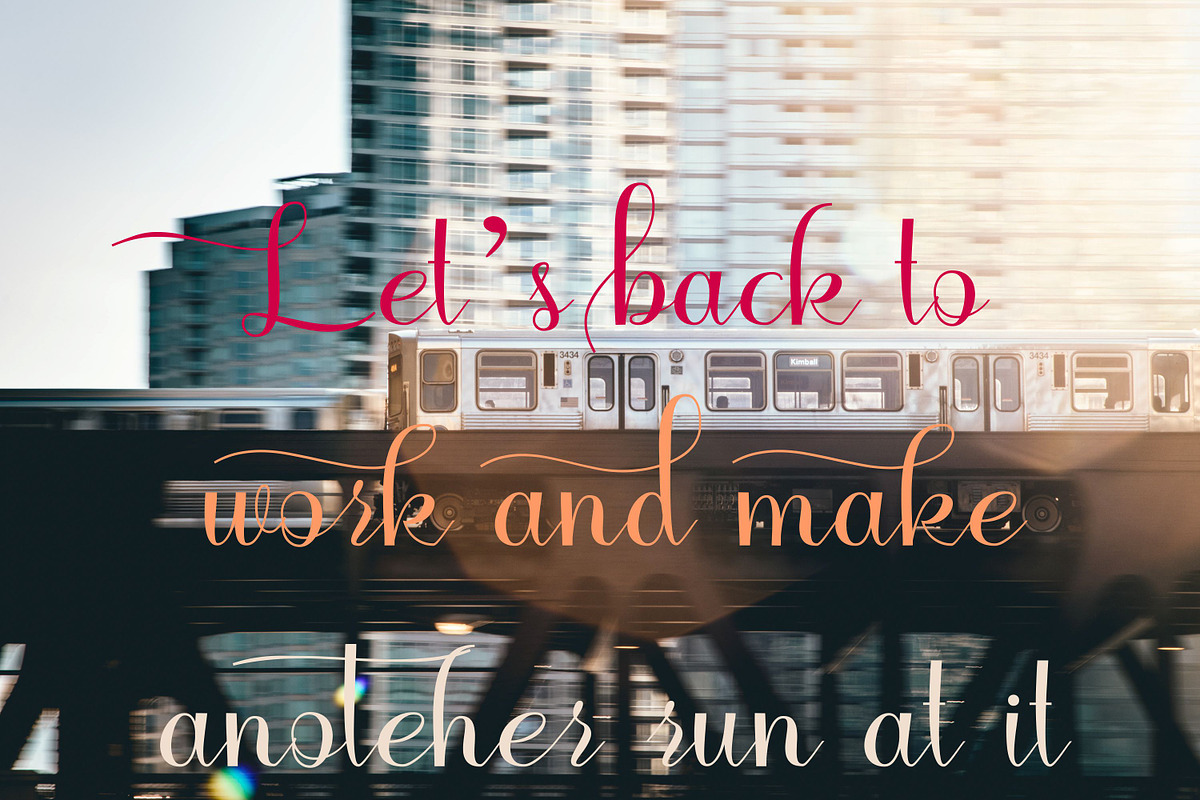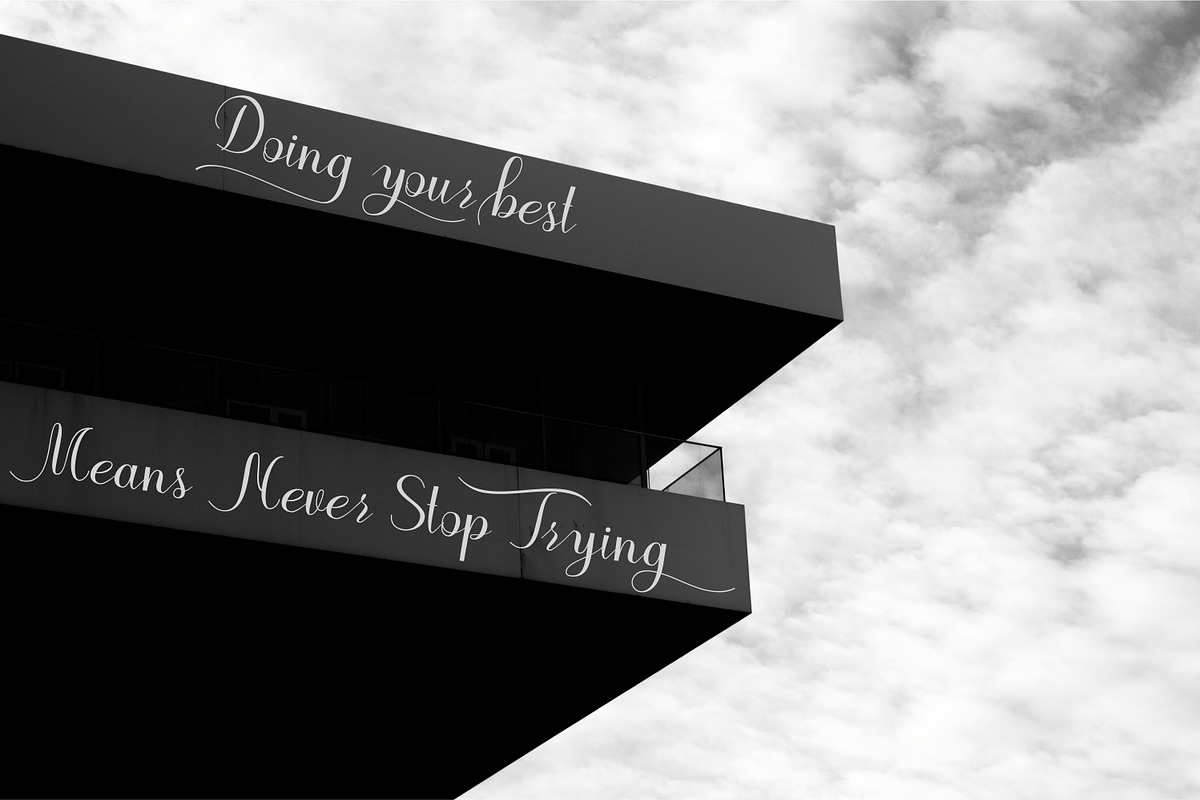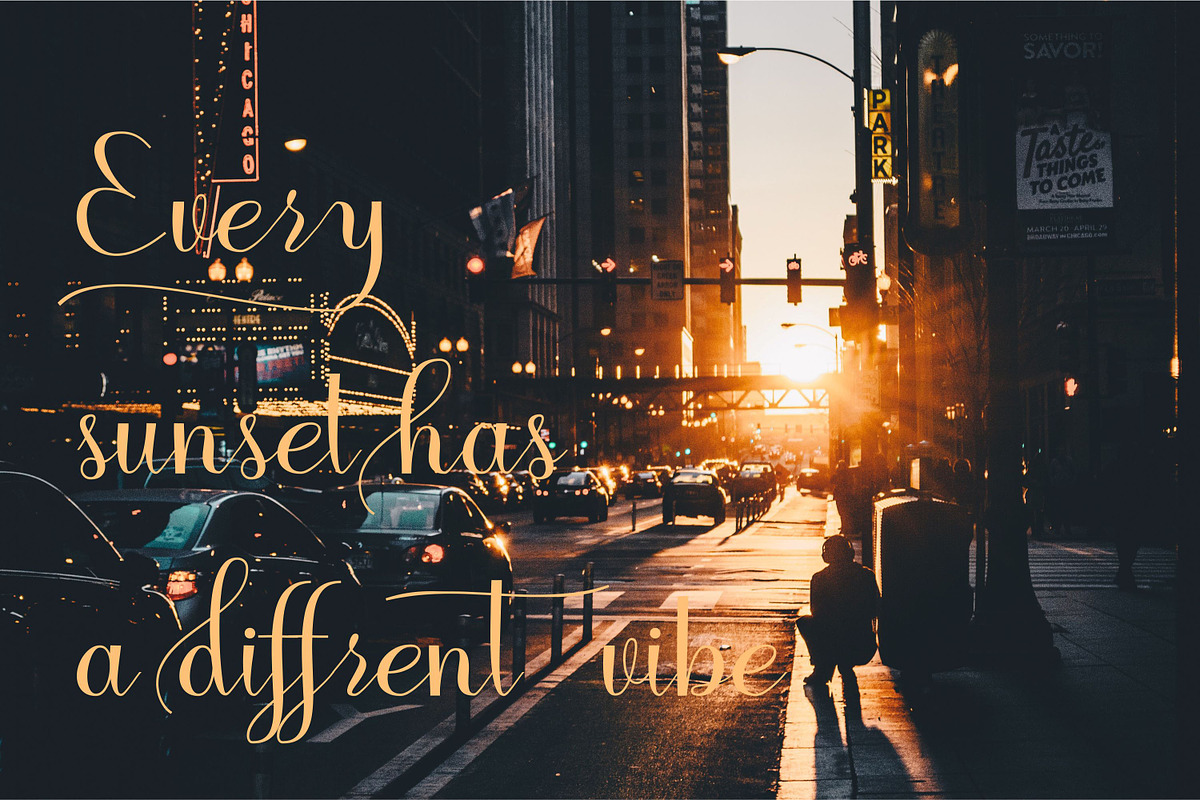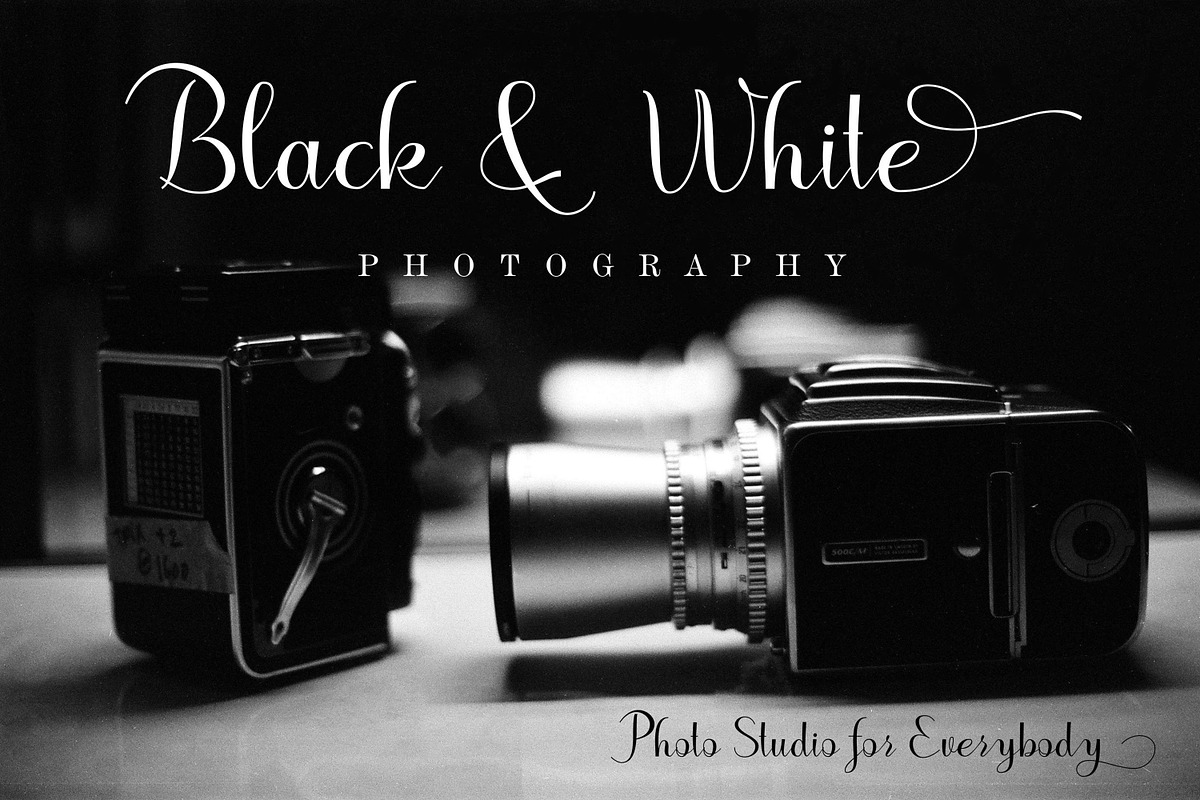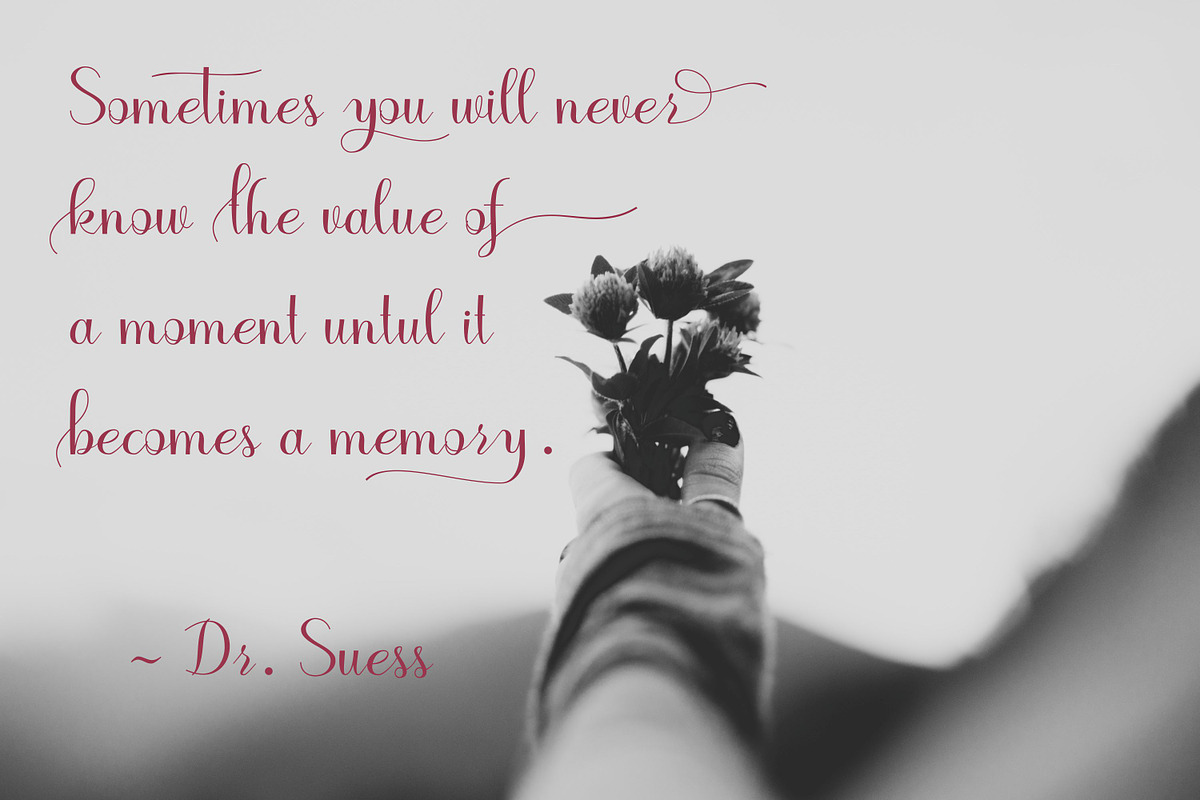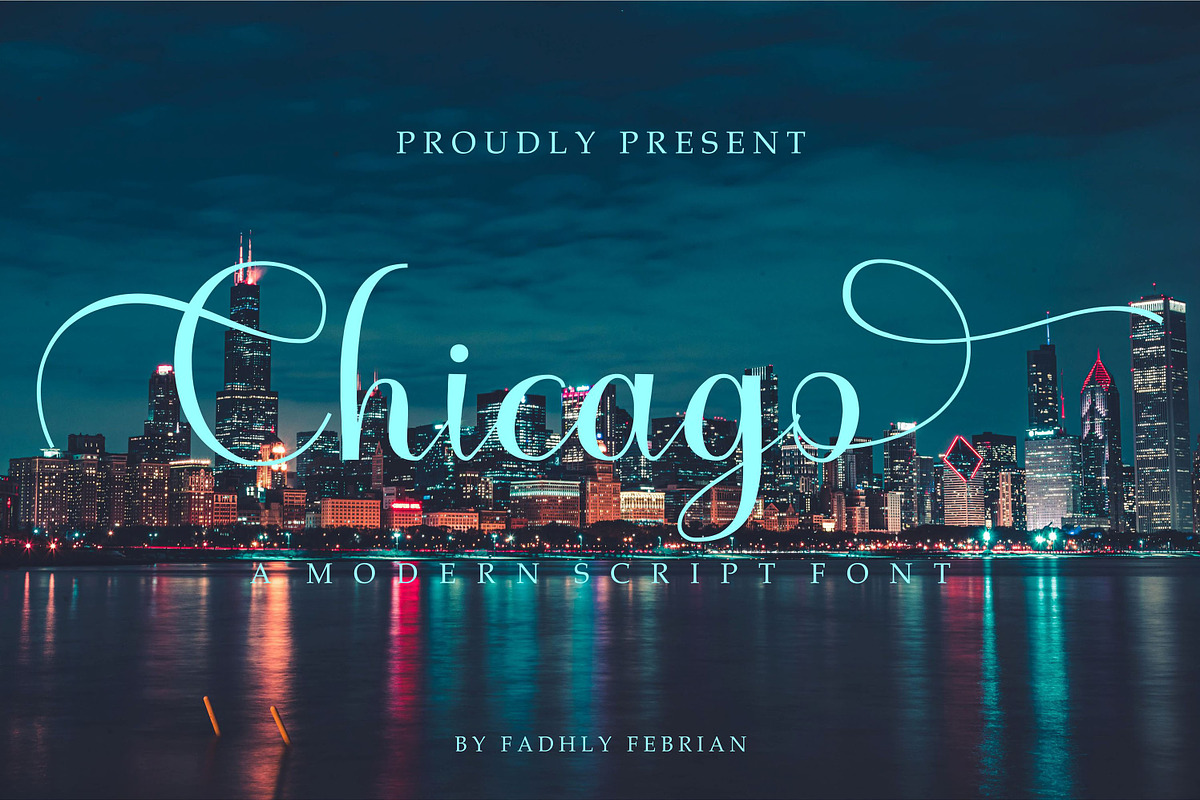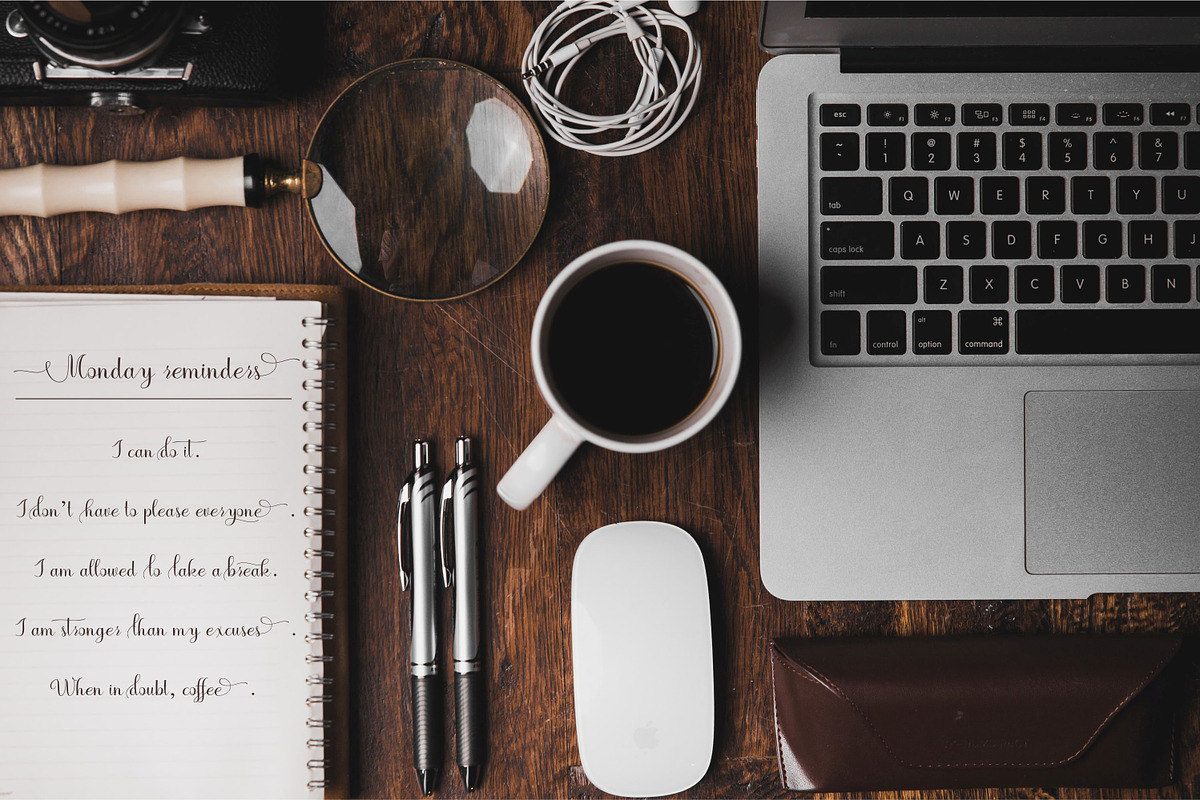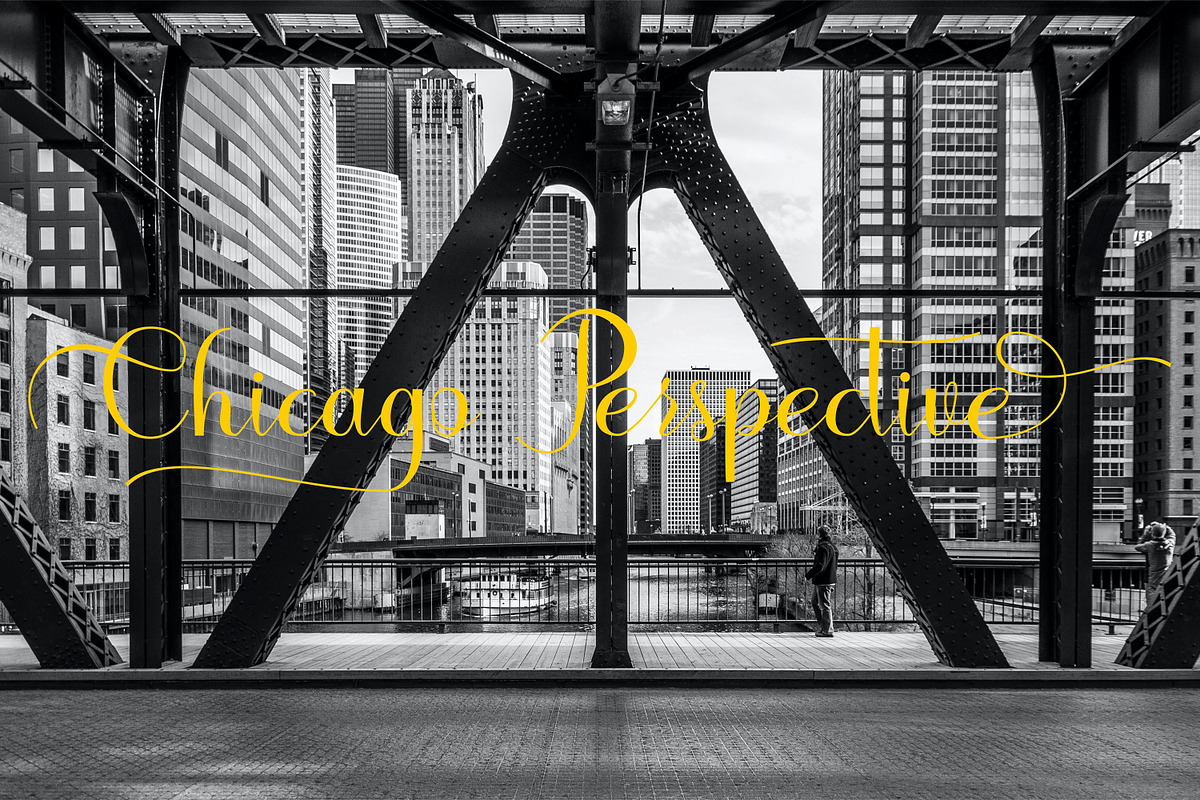
Chicago
Chicago is a script font that is packed with elegant style and also with OpenType features for alternative font choices. This font is perfect for branding projects, Logo design, Apparel Branding, packaging, magazine titles, advertisements, T-shirts, postcards etc.
Font features :
- Uppercase beginning swash
- Lowercase ending swash